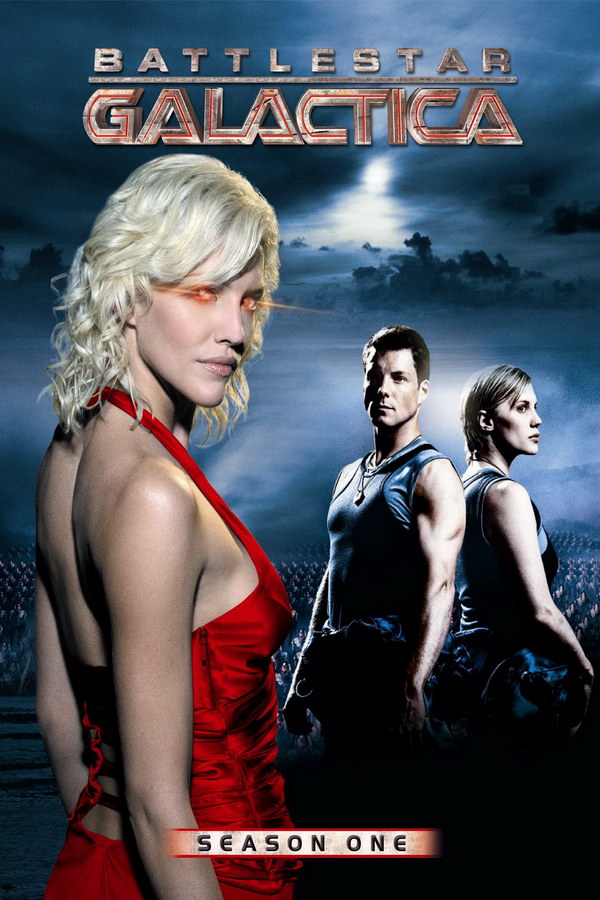
Battlestar Galactica Font
FamilyBattlestar Galactica is a science fiction television series that follows the journey of a fleet of human-controlled spaceships trying to find a new home after their planet is destroyed by the robotic Cylons.
The ''Battlestar Galactica'' title of the TV series closely resembles the Battlestar font. It's only offered in uppercase letters and can be obtained for free from the Fonts Used Section.